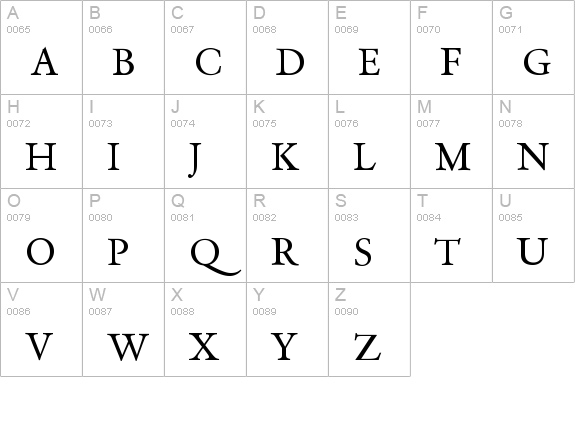
DTLVandenKeereT Font Details
DTLVandenKeereT is a timeless and elegant serif font that exudes sophistication and class. Its delicate serifs and balanced letterforms make it perfect for a wide range of design projects, from invitations to branding and everything in between. This beautiful font is meticulously crafted to provide a touch of old-world charm while remaining highly legible and versatile. Its classic design pays homage to the traditional typography of the past, yet it maintains a modern and unique flair that sets it apart from the rest. Best of all, DTLVandenKeereT is available for free download at FontsMarket.com, making it accessible to designers and creatives of all levels. Whether you're working on a personal project or a professional undertaking, this font is sure to add a touch of elegance and refinement to your work. Download DTLVandenKeereT today and elevate your design projects to new heights.